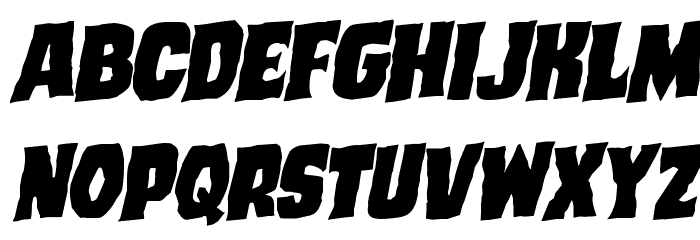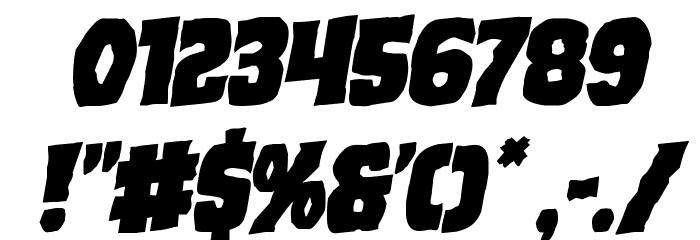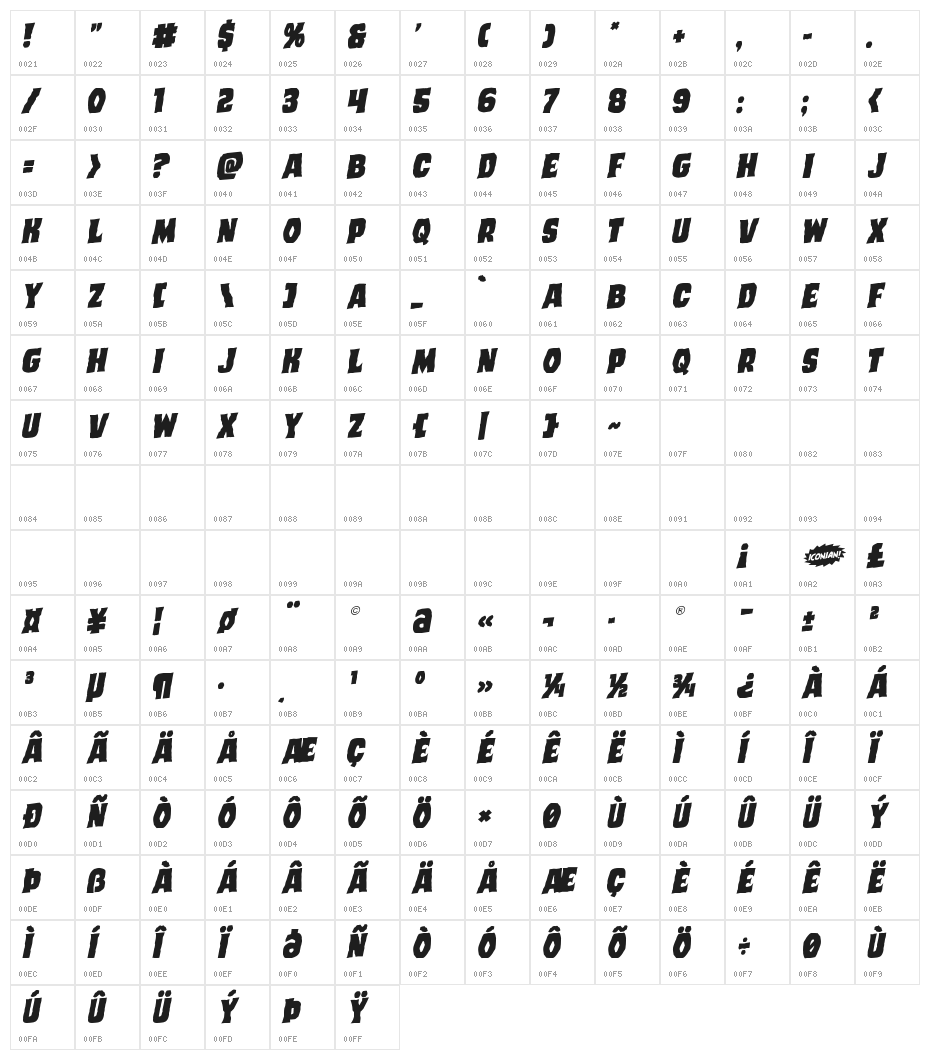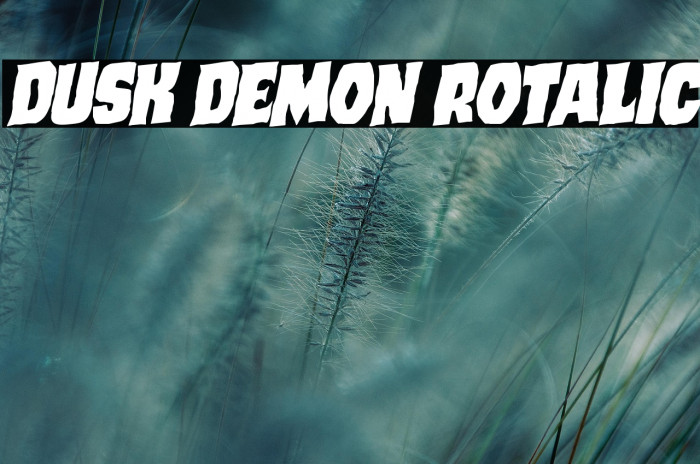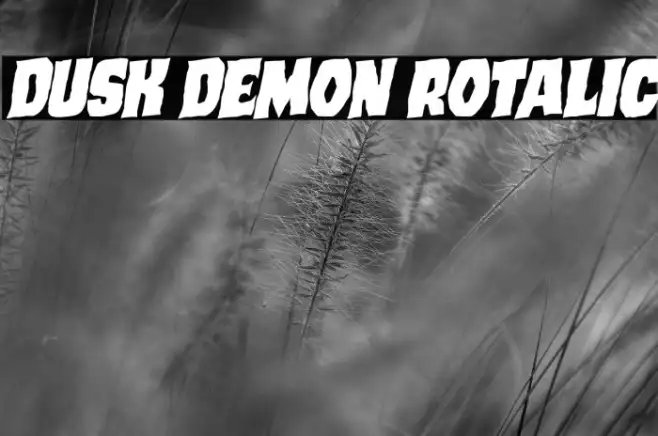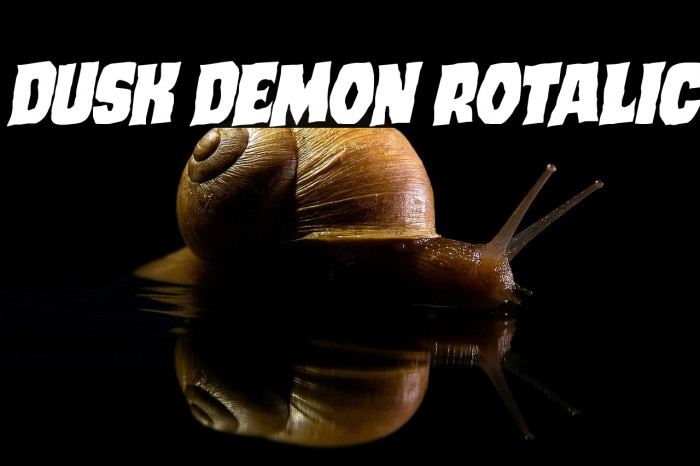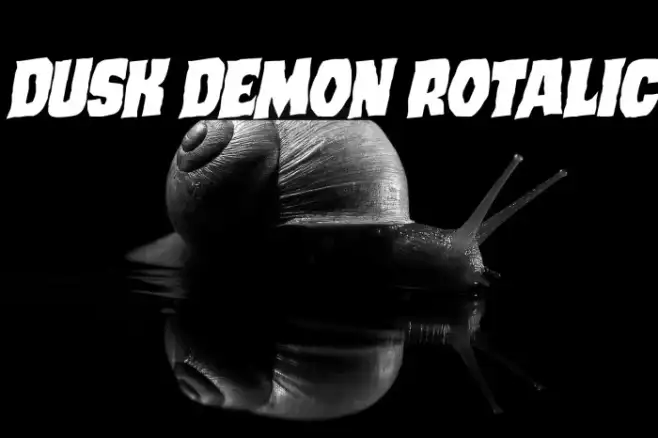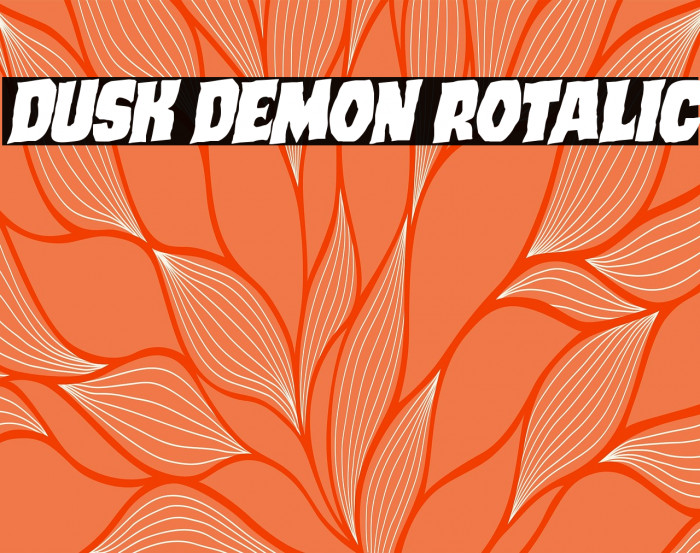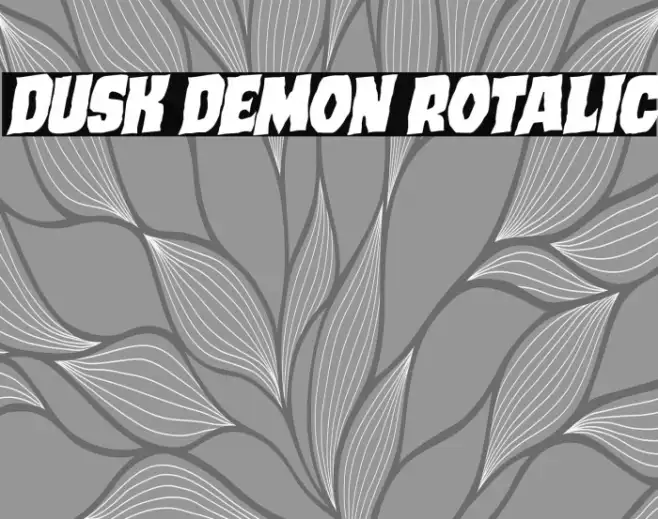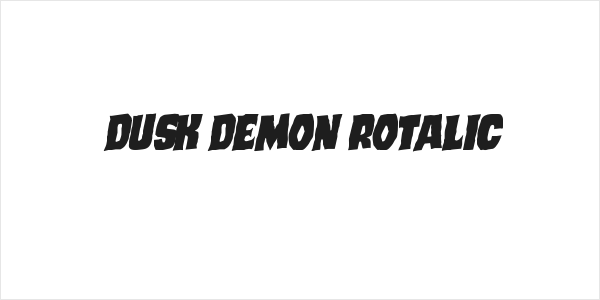
Dusk Demon Rotalic Font
This font features a bold and dynamic style with a distinct slant, giving it a sense of movement and energy. The characters are thick and robust, with sharp, angular edges that create a striking visual impact. The uppercase and lowercase letters maintain a consistent style, while the numbers and special characters integrate seamlessly into the overall design. The font's aggressive and edgy appearance makes it ideal for projects that require a strong and attention-grabbing typeface.
A bold, slanted, and dynamic font with sharp, angular edges.
- Proposed Projects: Perfect for sports branding, action movie posters, video game titles, and edgy graphic designs.